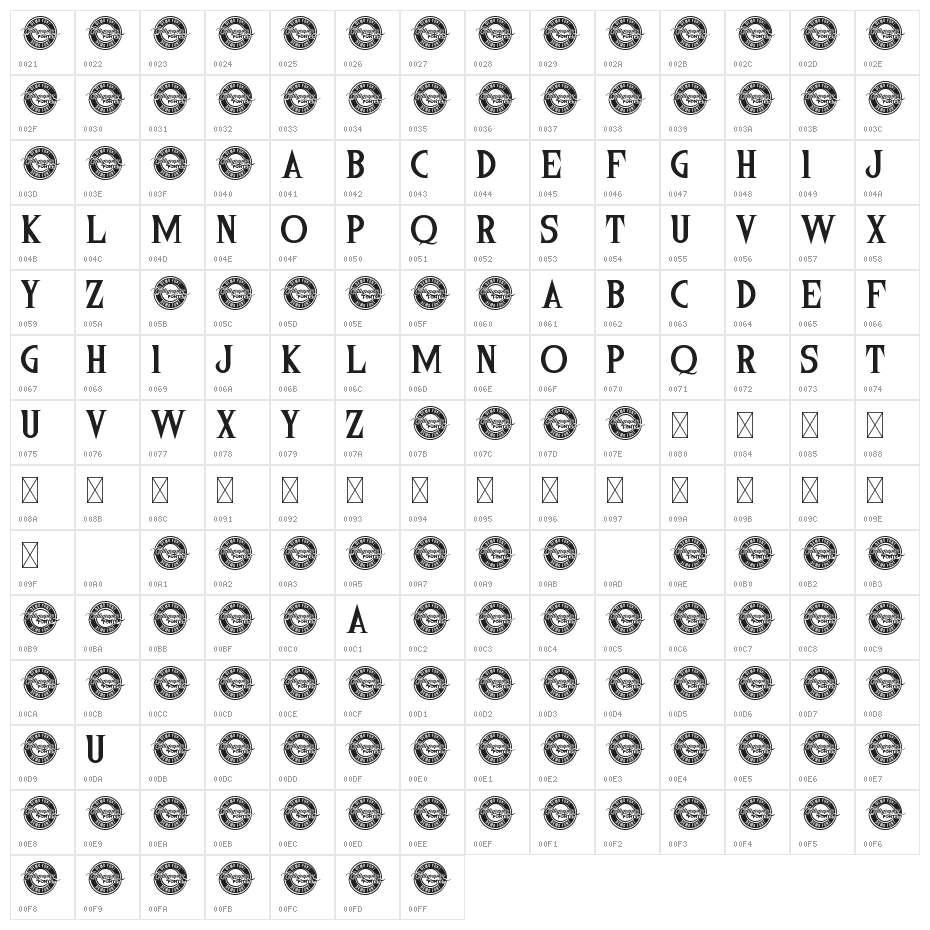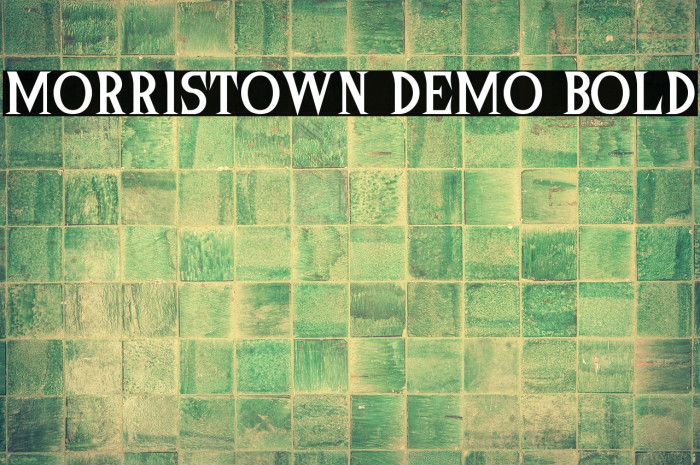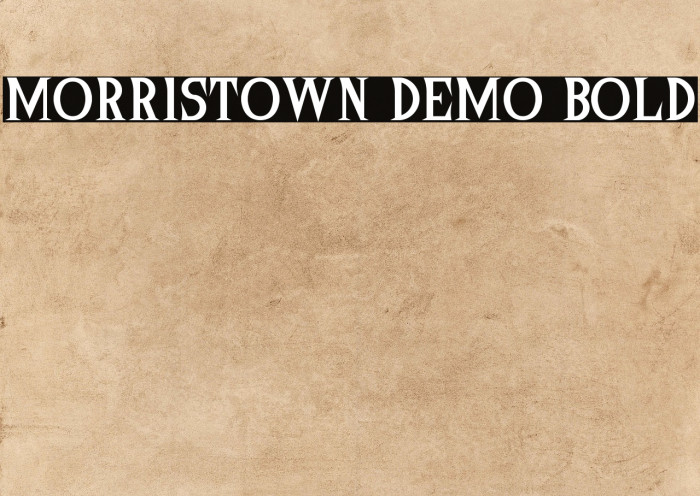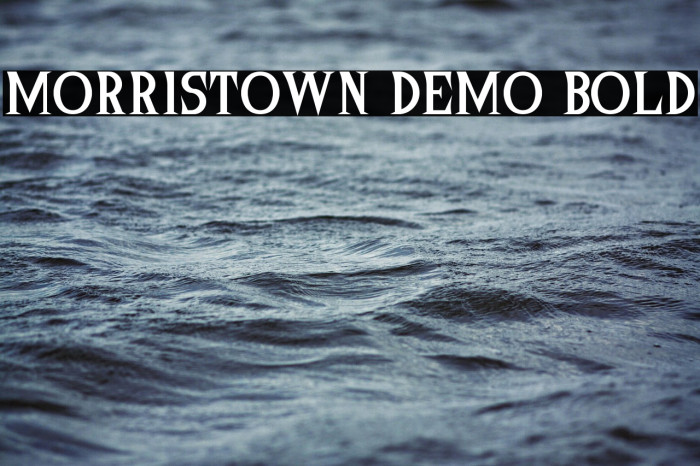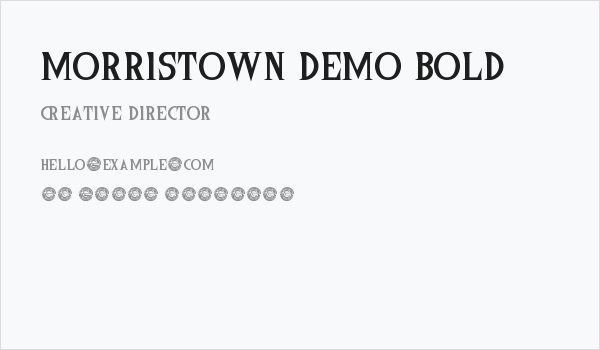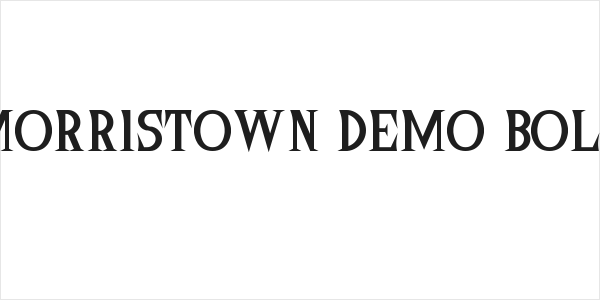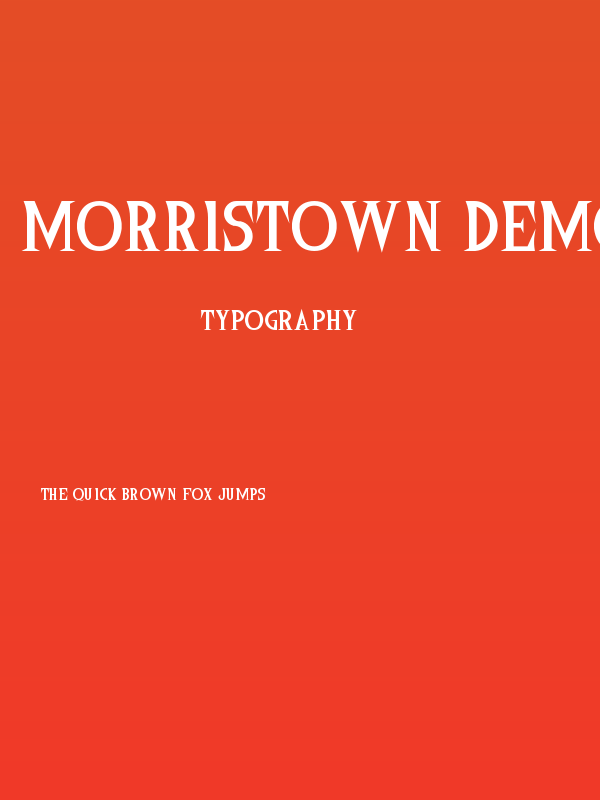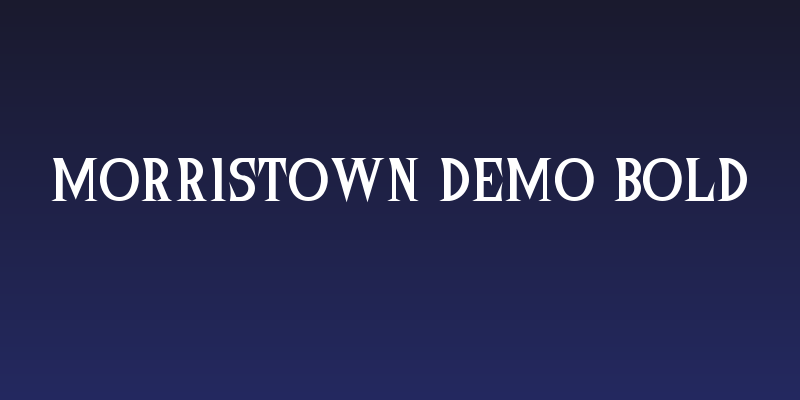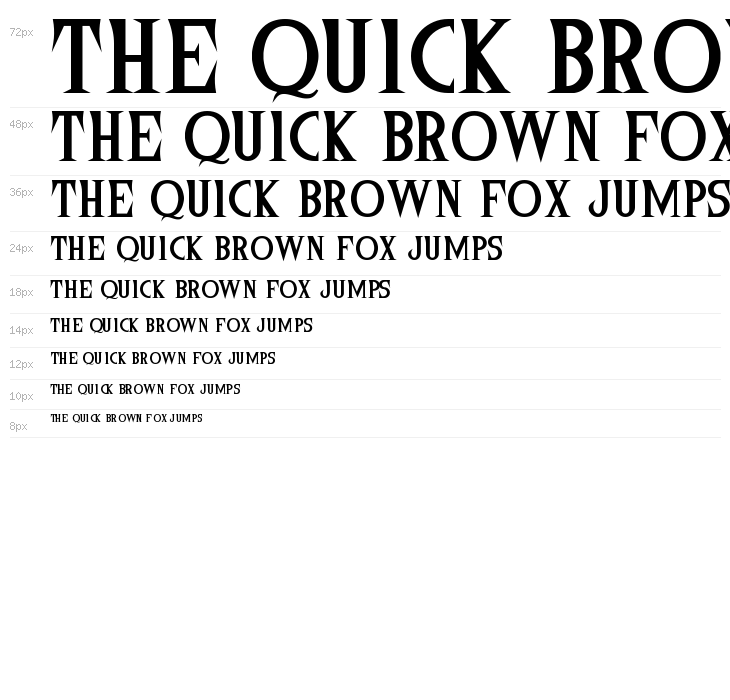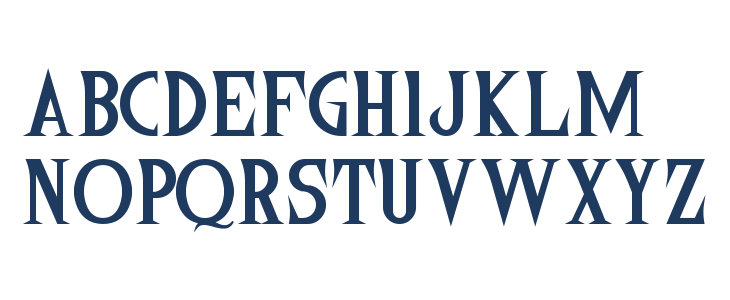
Morristown Demo Bold Font
Morristown Demo Bold Description
This font features a bold and striking design with sharp, angular serifs that give it a strong and authoritative presence. The uppercase letters are distinct and commanding, with a slight flair that adds a touch of elegance. The overall appearance is both classic and modern, making it versatile for various design applications. The characters are well-proportioned, ensuring readability while maintaining a unique style. The font's boldness is complemented by its medium contrast, providing a balanced look that is neither too heavy nor too light. This makes it suitable for headlines and titles where impact is essential.
| Proposed Projects | This font is perfect for branding projects, editorial headlines, posters, and any design work that requires a strong, authoritative typeface. |